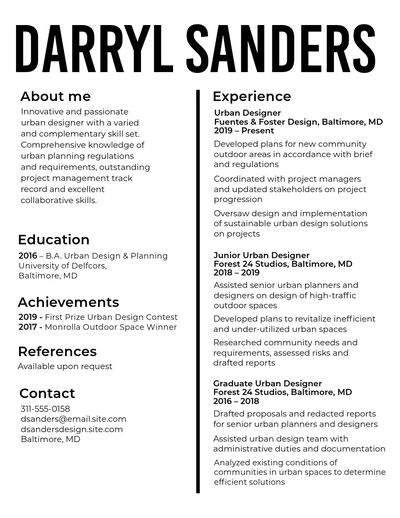
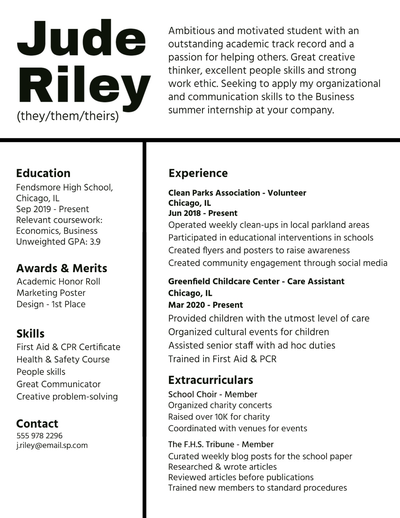
Maintaining a uniform visual presentation Updating your resume font to reflect current best practices
what is a good font for a resume
- Presenting supplementary details clearly If I have a career portfolio website, should the font on my resume match the fonts used on my website?
- It can help your resume stand out subtly and show attention to detail
- Prioritize readability and choose fonts that complement the visual style
- Choosing fonts with international appeal How can I use font to make my resume look inviting and easy to navigate for recruiters?
- Choosing a slightly less common but still professional font
- Presenting your volunteer work clearly If I have a lot of numerical data on my resume, are there any fonts that are particularly well-suited for displaying numbers clearly?
- Using larger and bolder fonts for headings, smaller for body text
- Tools for analyzing font choices in CVs
- Greater flexibility for creating visual hierarchy and emphasis while maintaining consistency
- Finding the right balance in font size Why are certain fonts considered unprofessional for resumes?